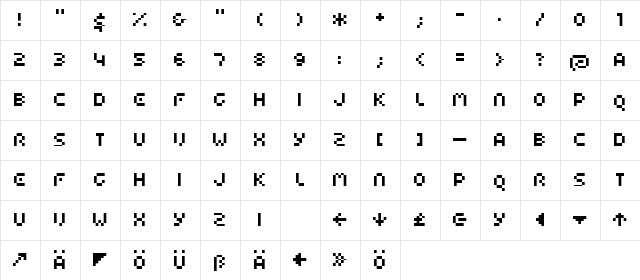
HIAIRPORTARRIVAL Regular
Design Context for HIAIRPORTARRIVAL Typeface
HIAIRPORTARRIVAL is a composed and adaptable typeface that performs quietly and consistently across a wide range of design contexts.